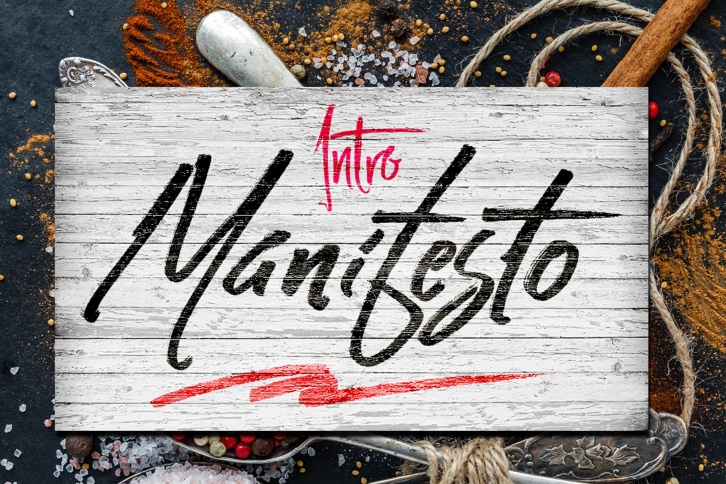
Manifesto S TRIO is a beautiful font that was designed by Artisans. It's a great choice for designers and creatives who need such a font. It was released on October 13, 2018 and the file size is 3.84 MB. Manifesto S TRIO may give a more youthful, expressive and casual look to your project. It is a very beautiful, refined, elegant, and high-quality font.